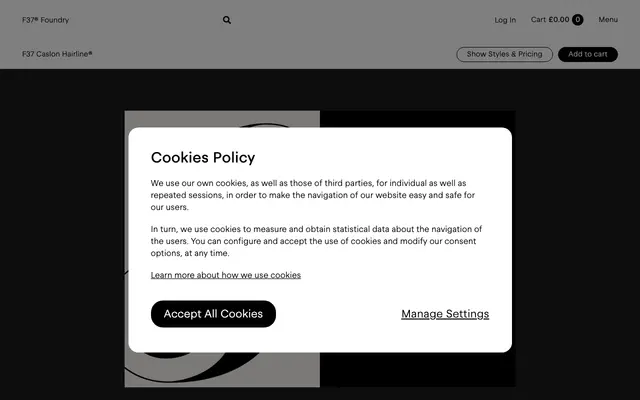
F37 Caslon Hairline
F37 Caslon Hairline specimen from F37 Foundry
The hairline display cut of F37 Caslon, with very fine strokes for large display use across upright and Condensed widths.
A hairline display Caslon. Sixteen styles run across four weights with matching italics, plus a Condensed width with its own matching italics, all drawn at hairline contrast. Built strictly for very large sizes, the kind of magazine cover or fashion campaign type where the thin strokes can hold their weight. Pairs with F37 Caslon Text for body copy and the standard F37 Caslon for mid-display sizes.
F37 position F37 Caslon Hairline as the hairline display cut within the F37 Caslon system. It carries extremely fine strokes designed for very large display use only.